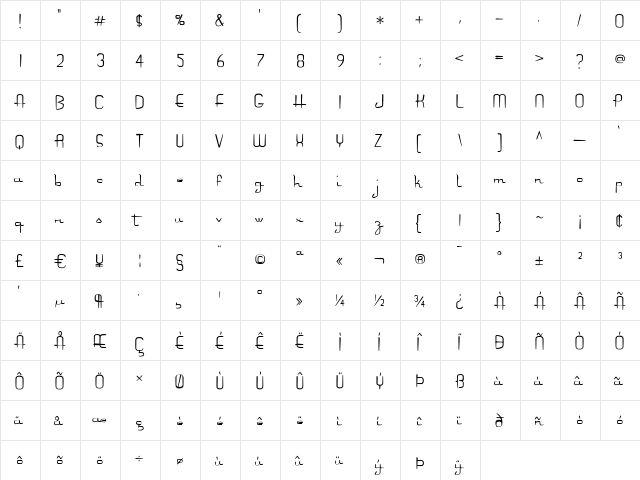
AlsMotor-Inn Regular
Design Context for AlsMotor-Inn Typeface
AlsMotor-Inn is a composed and adaptable typeface that performs quietly and consistently across a wide range of design contexts.